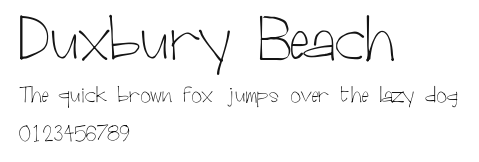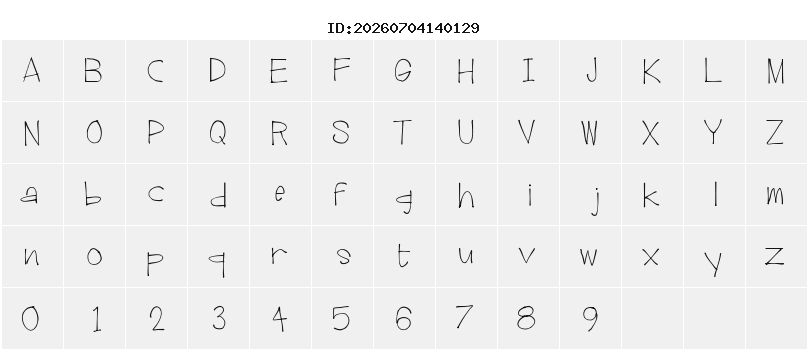
Duxbury Beach Preview
• Font Name: Duxbury Beach
• Full Font Name: Duxbury Beach
• PostScript Name: DuxburyBeach
About Duxbury Beach.ttf
Duxbury Beach.ttf is a modern, elegant sans-serif font designed for ultimate readability and visual harmony. Perfect for branding, headlines, web design, and print materials.